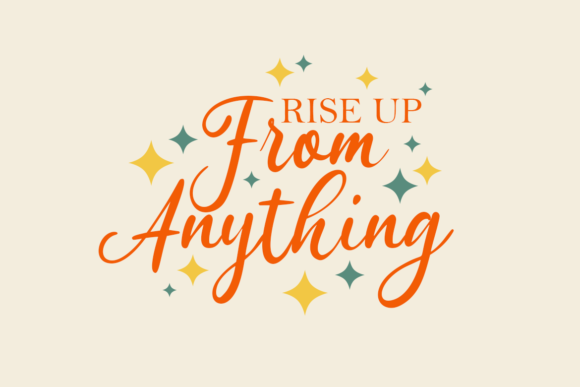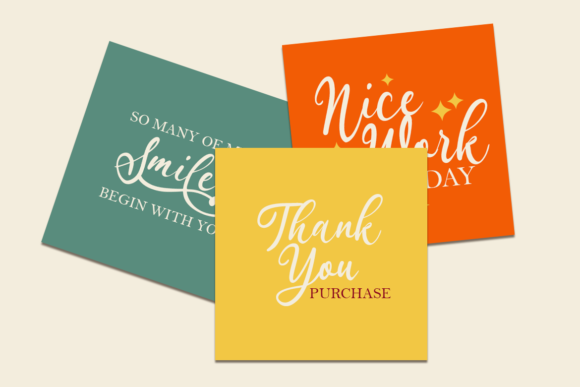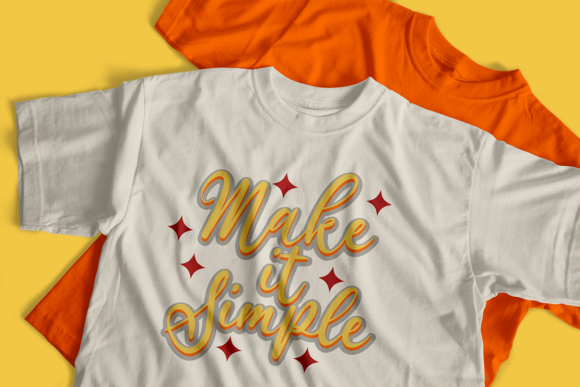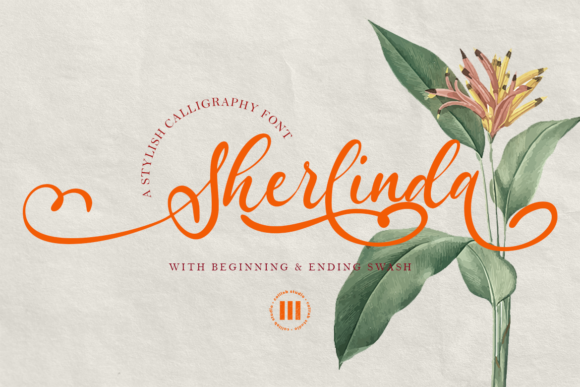
Sherlinda is a magical script font carefully created with a touch of elegance.
This font is PUA encoded which means you can access all of the glyphs and swashes with ease .